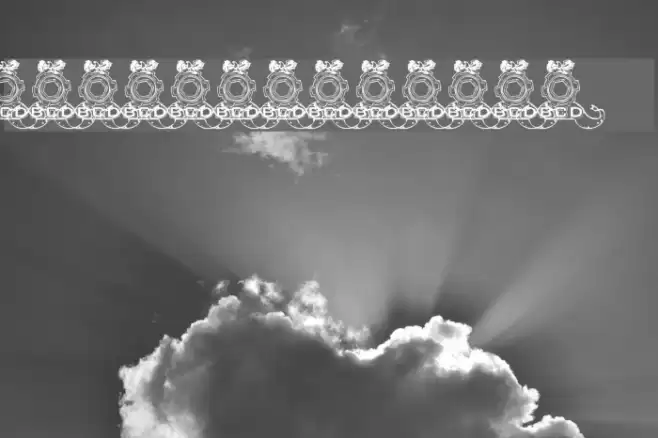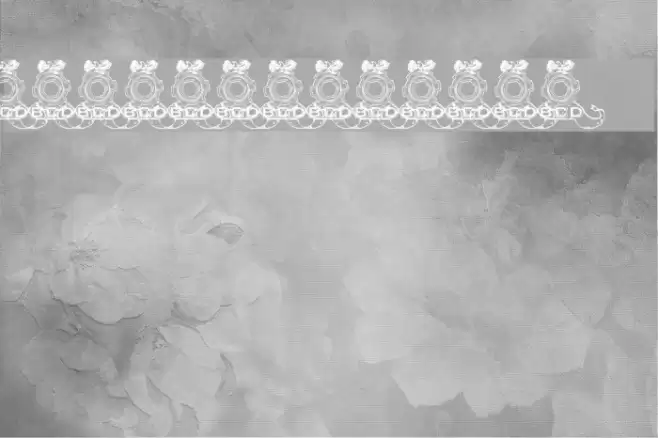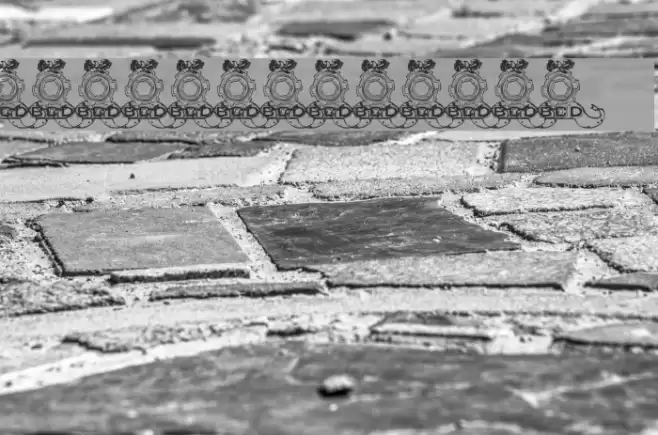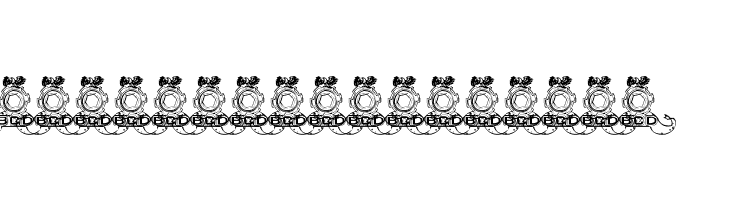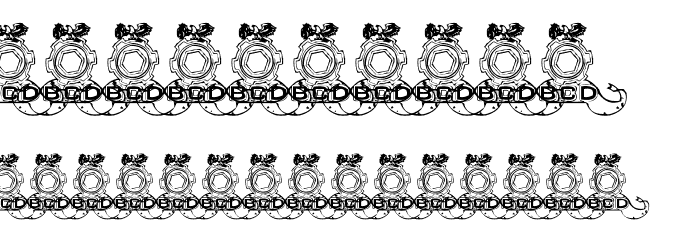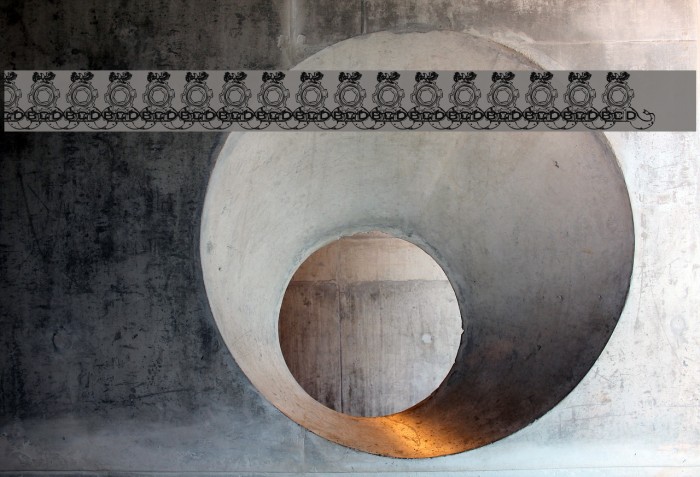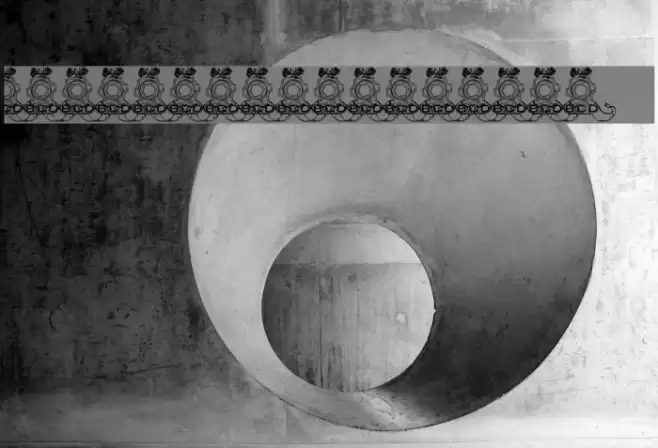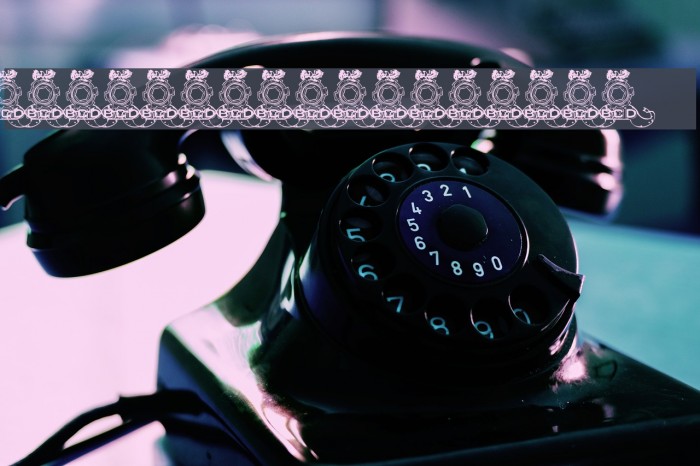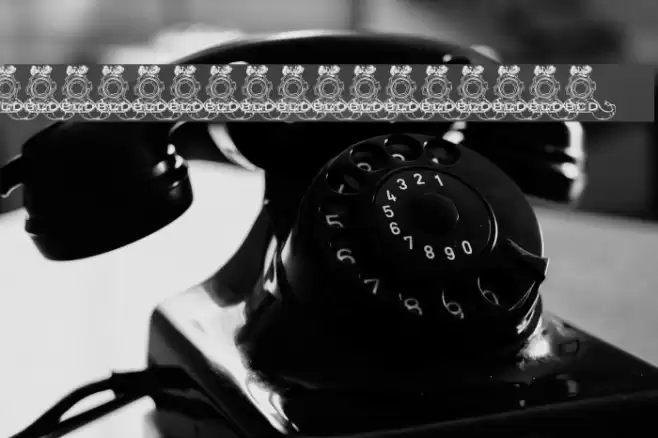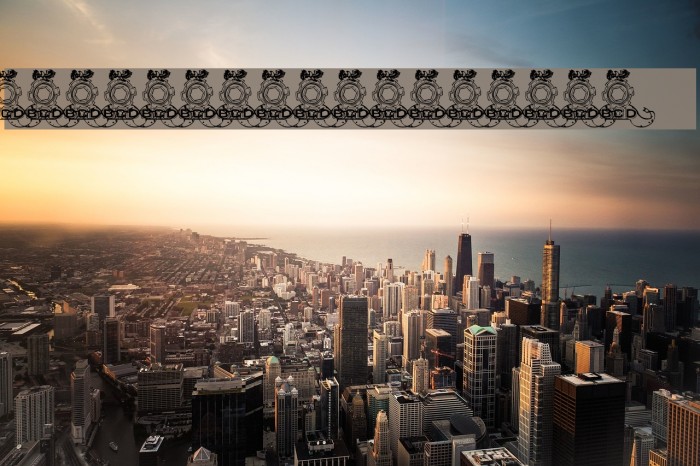
Bolt Cutter Light Font
Bolt Cutter Light Description
This font features a highly decorative and intricate design, characterized by ornate embellishments that give it a unique and artistic appearance. Each character is adorned with elaborate swirls and flourishes, creating a sense of elegance and sophistication. The style is reminiscent of vintage or classical typography, with a touch of whimsy and fantasy. The detailed design makes it suitable for projects that require a distinct and eye-catching typeface, such as invitations, posters, or branding materials that aim to convey luxury or creativity.
An ornate and decorative font with intricate embellishments from Gothic fonts.
- Proposed Projects: Ideal for wedding invitations, luxury branding, artistic posters, and decorative signage.
- Overall Style: Vintage, Decorative
- Use Case: Logos, Headlines, Decorative text